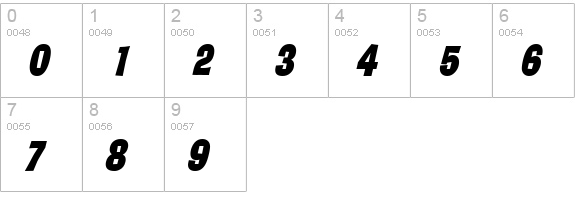
Alor Condensed BoldItalic Font Details
Alor Condensed BoldItalic is a distinctive, condensed-width variant in the Alor typeface family \xE2\x80\x94 well suited to design and typography projects.
Alor Condensed BoldItalic font is a stylish and modern typeface that exudes confidence and sophistication. Its bold and italic design adds a touch of elegance to any project, making it perfect for headlines, titles, and branding materials. The condensed style of the font allows for efficient use of space while maintaining readability and impact. This versatile font is suitable for a wide range of design projects, from posters and advertisements to packaging and websites. Its sleek and contemporary look is sure to capture the attention of viewers and leave a lasting impression. Best of all, the Alor Condensed BoldItalic font is available for free download at FontsMarket.com. Whether you're a designer looking to elevate your work or a business owner in need of a standout font for your brand, this font is a fantastic choice that won't cost you a dime. Download it today and enhance your designs with the striking appeal of Alor Condensed BoldItalic font.